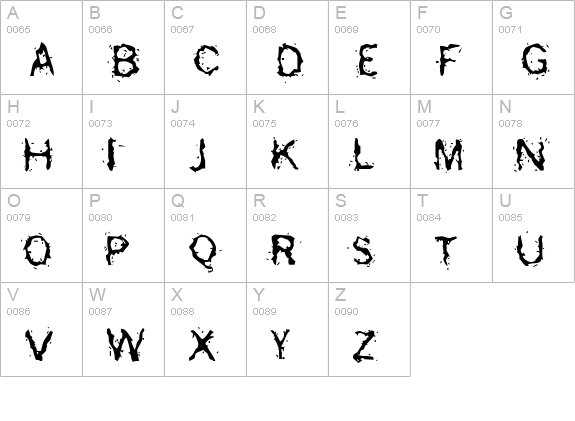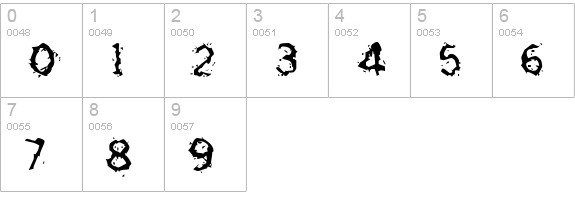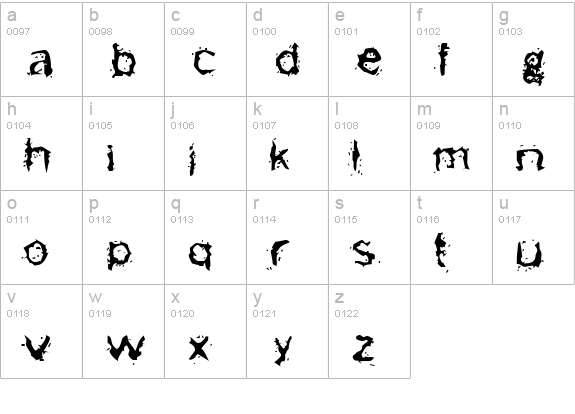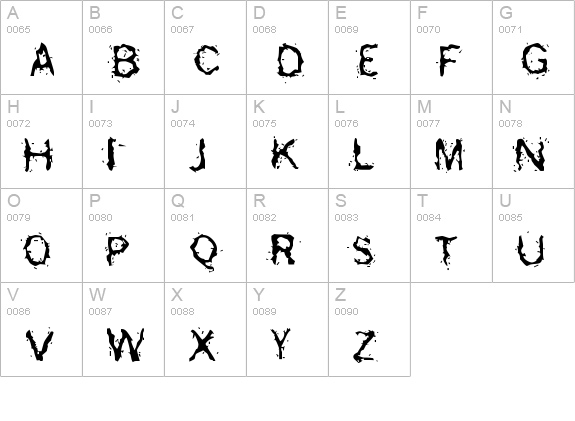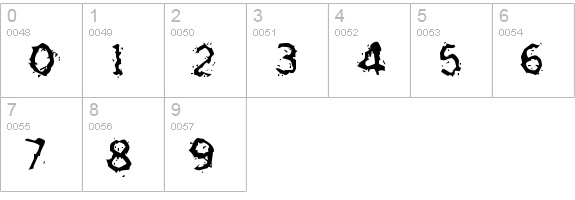
Freemason Blah Font Details
Introducing Freemason Blah font – a captivating typeface that effortlessly combines elegance with a touch of mystery. This unique font features intricate details and sharp lines that give off an air of sophistication and exclusivity. Freemason Blah font exudes a sense of timeless charm, making it perfect for a wide range of design projects. What sets Freemason Blah font apart is its versatility and adaptability. Whether you're working on a logo, branding materials, invitations, or any other creative project, this font will surely make a statement. Its classic yet modern design ensures that your text stands out while maintaining a sense of professionalism. And the best part? Freemason Blah font is completely free to download at FontsMarket.com. Yes, you read that right – you can access this stunning font at no cost, making it the perfect choice for designers on a budget or anyone looking to add a touch of elegance to their work without breaking the bank. Don't miss out on the opportunity to elevate your designs with Freemason Blah font. Download it today and watch your projects come to life with style and sophistication.